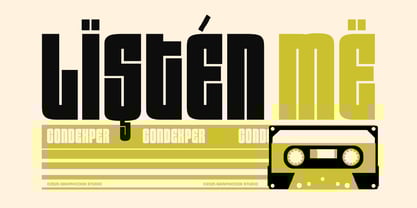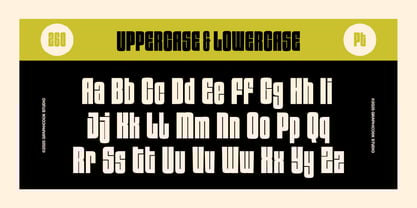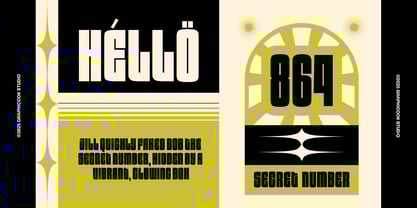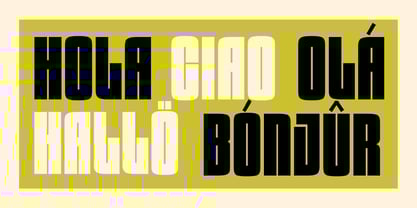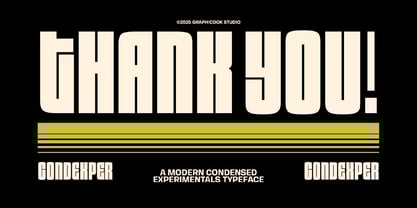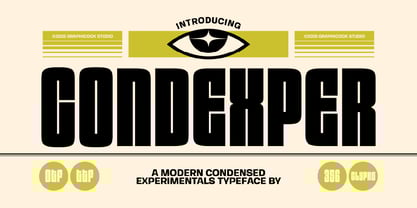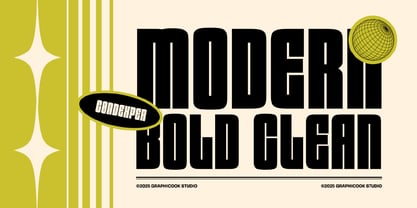
Cook Condexper
by Graphicook Studio
The Cook Condexper Font Family was designed by Gumilar Febriansyah and published by Graphicook Studio. Cook Condexper contains 1 styles. More about this family
Condexper is a condensed experimental font with a modern retro style. Its unique typeface makes it perfect for headlines, social media, magazines, and posters.
Designers: Gumilar Febriansyah
Foundry: Graphicook Studio